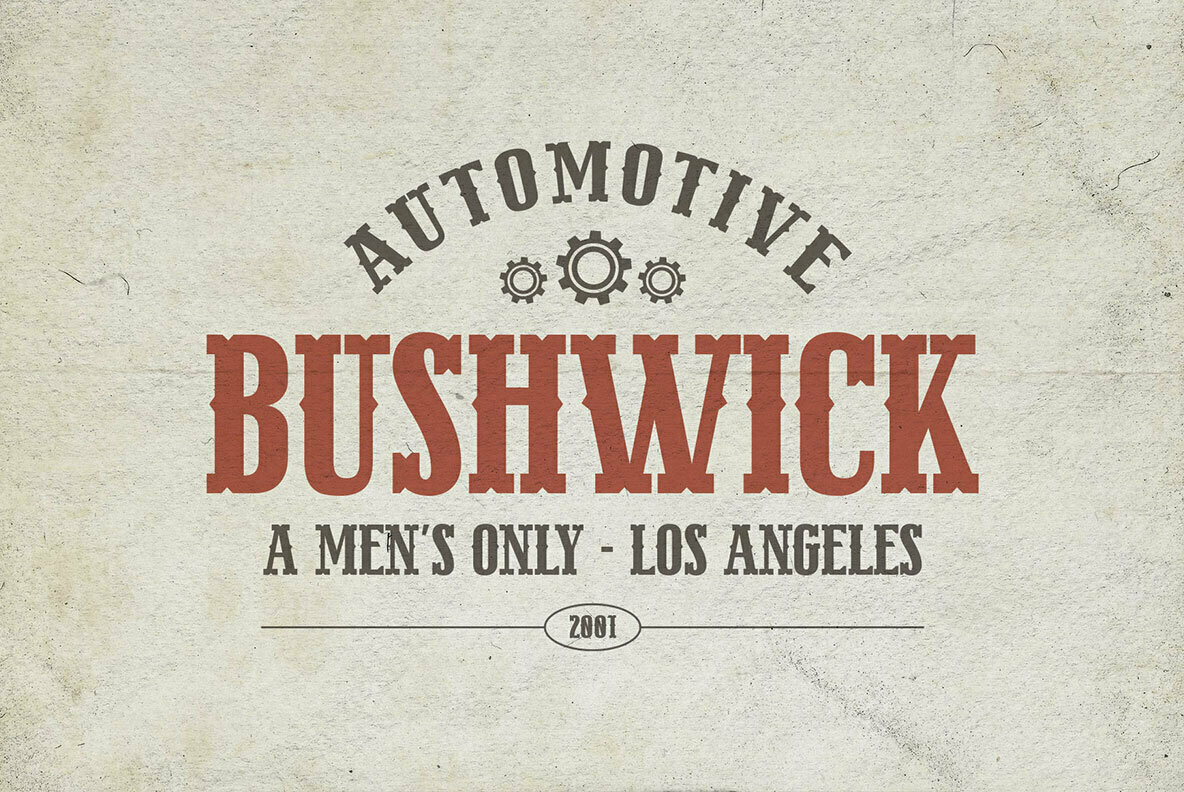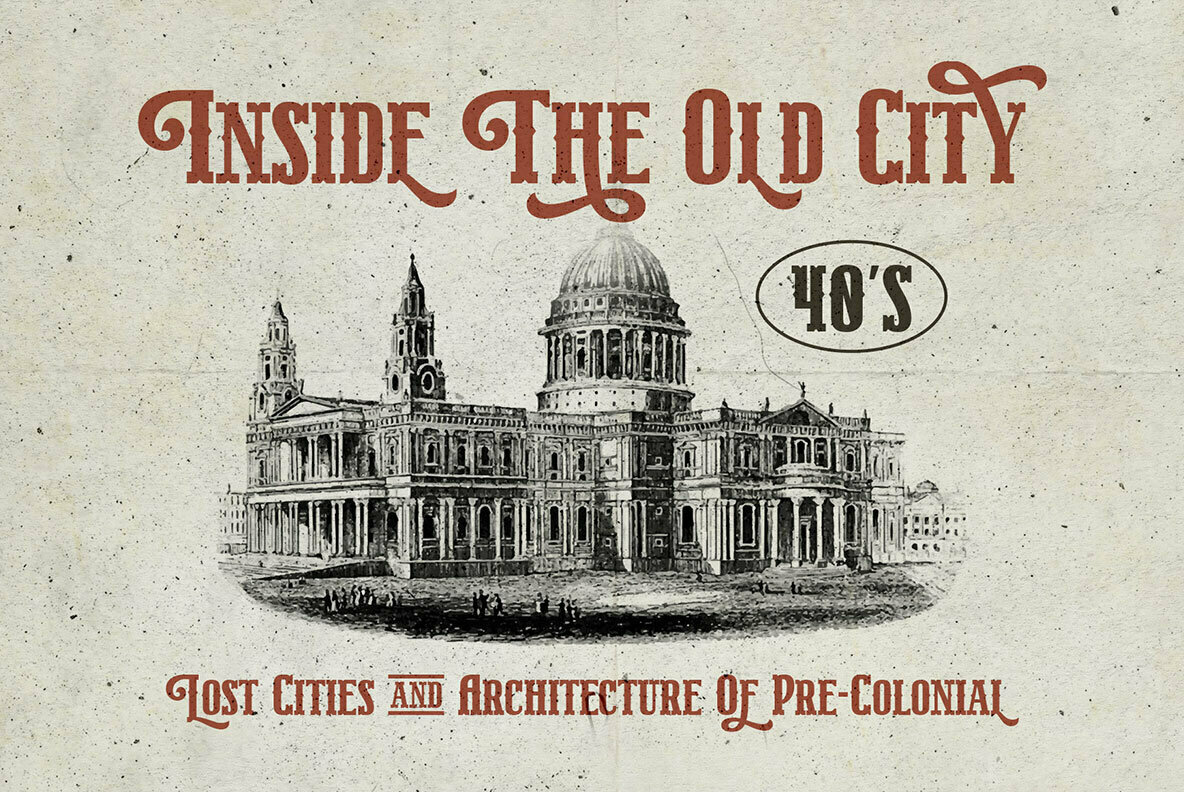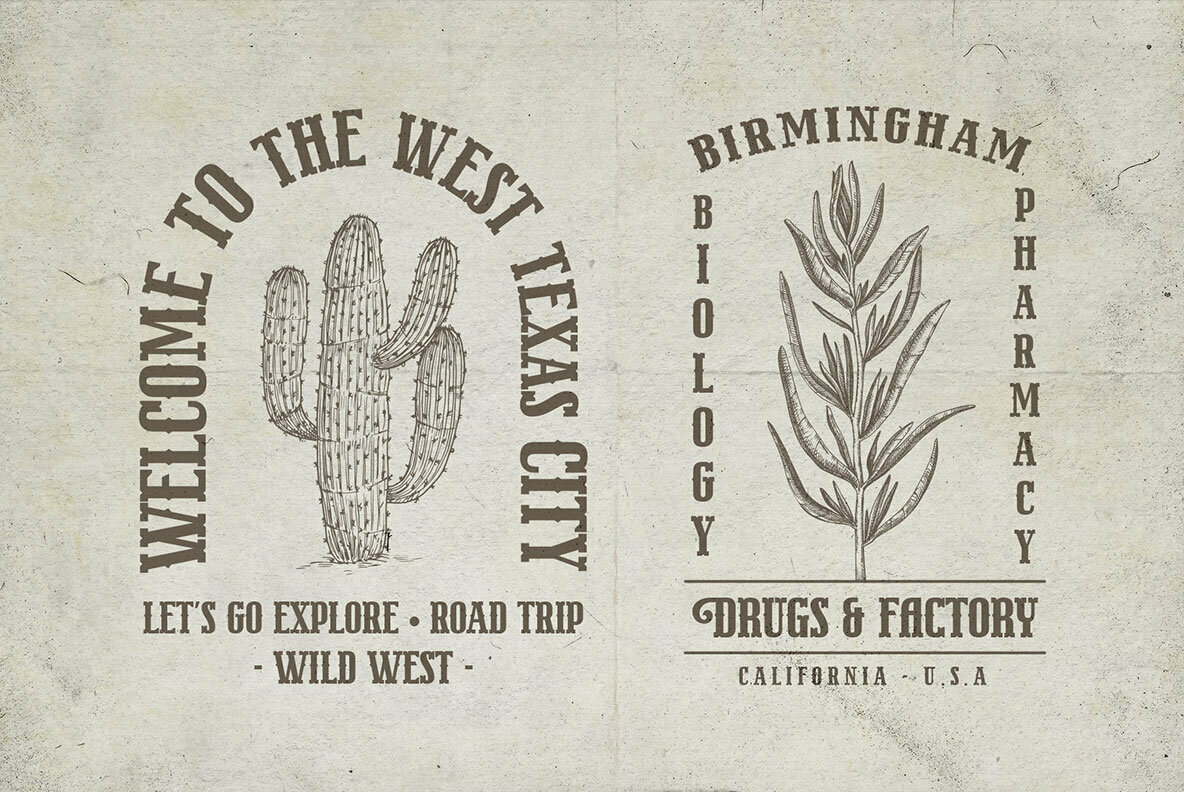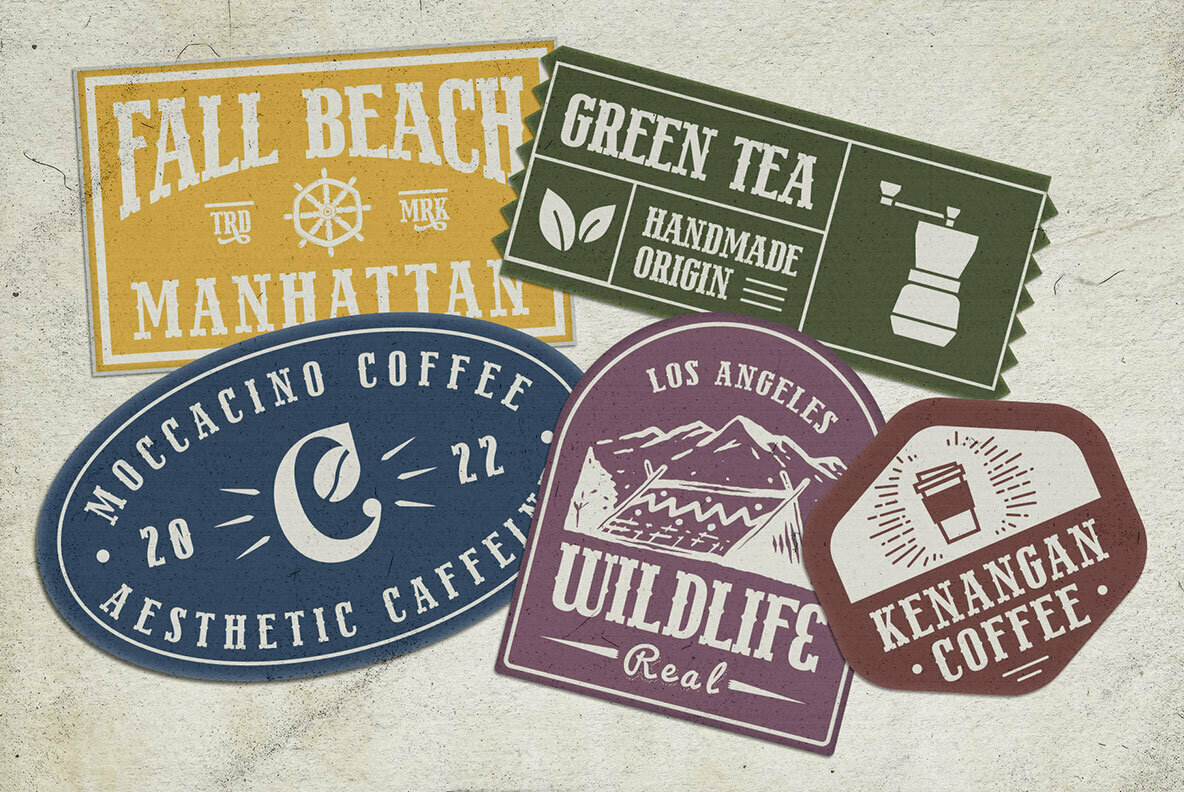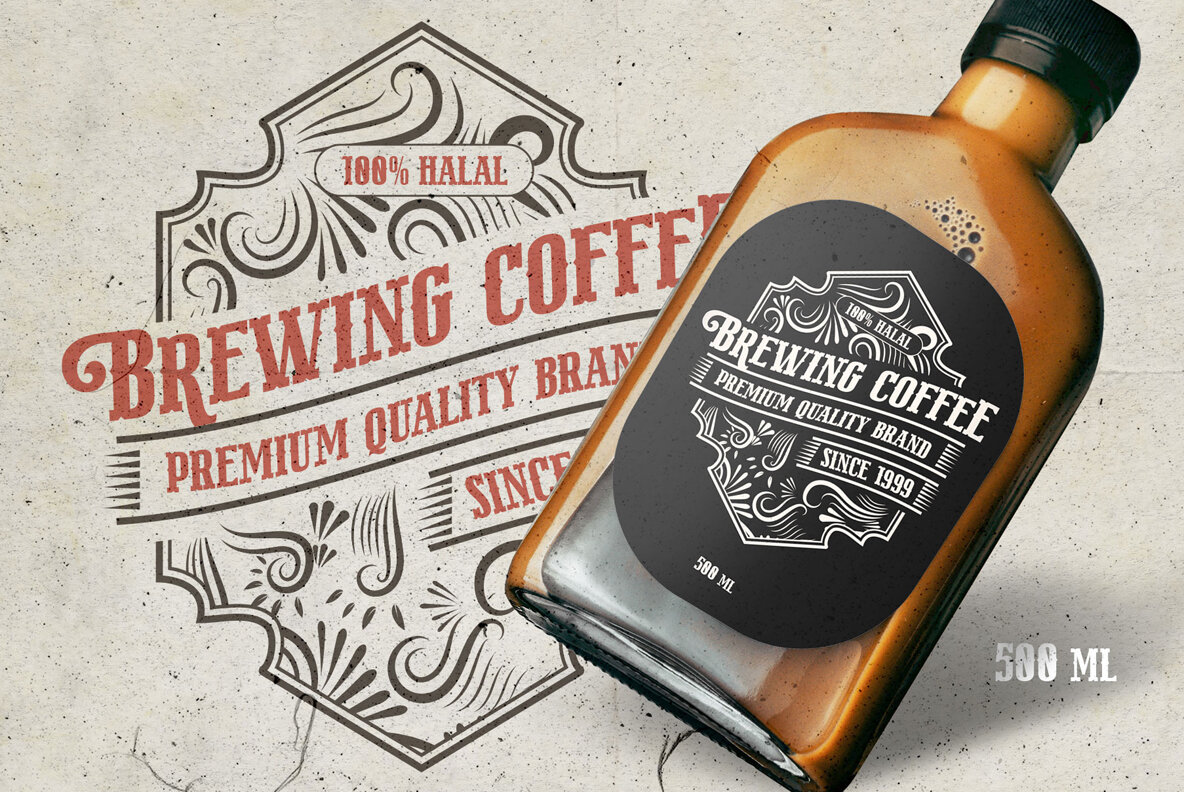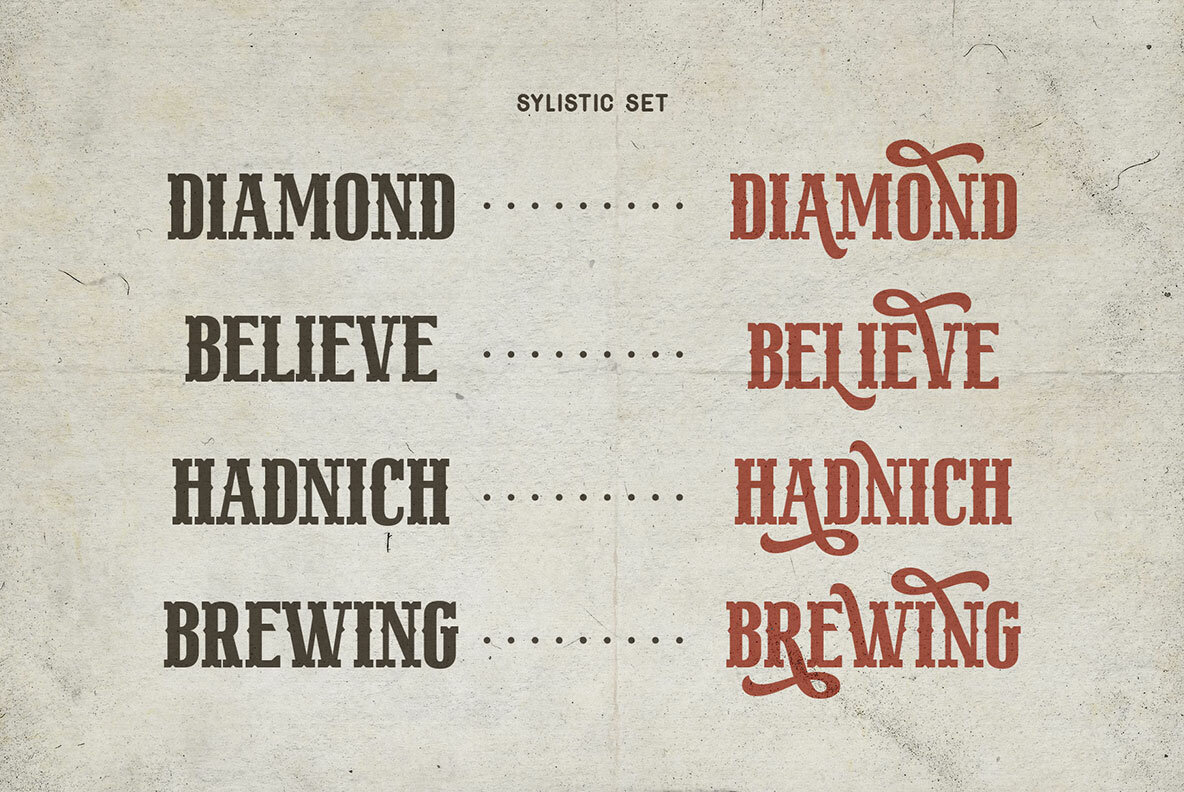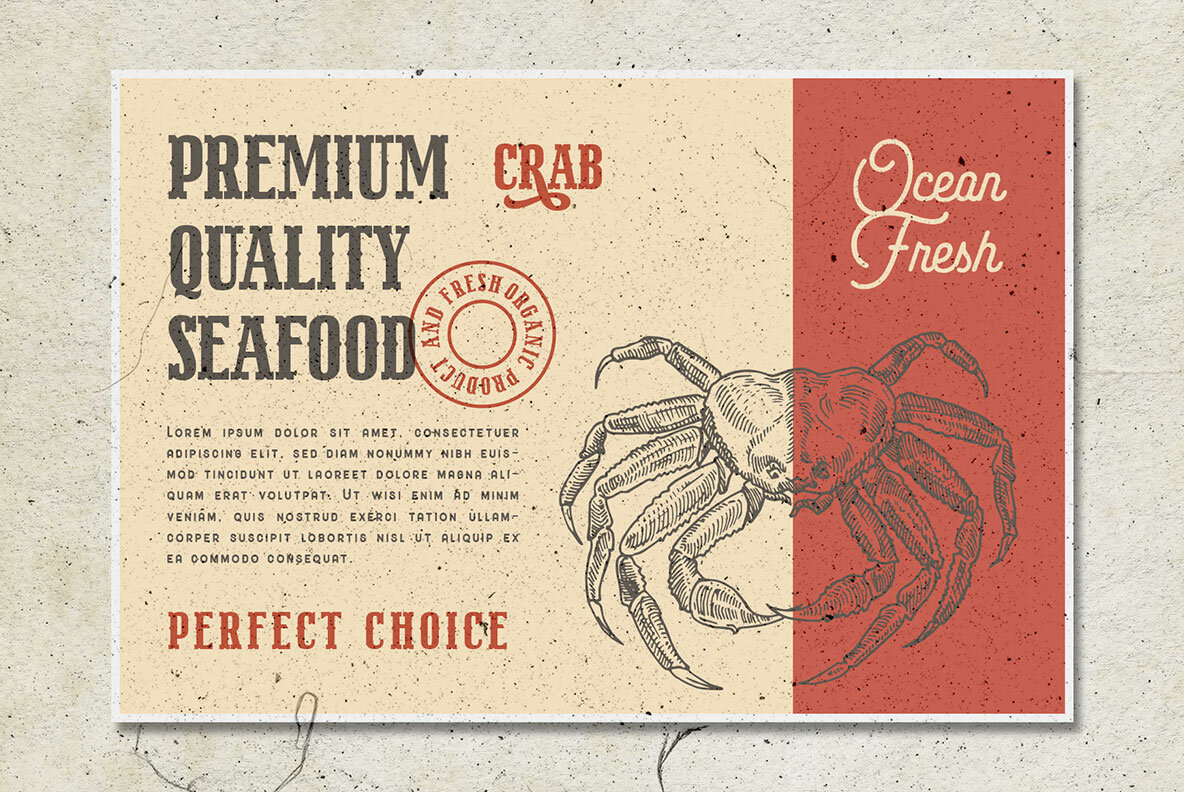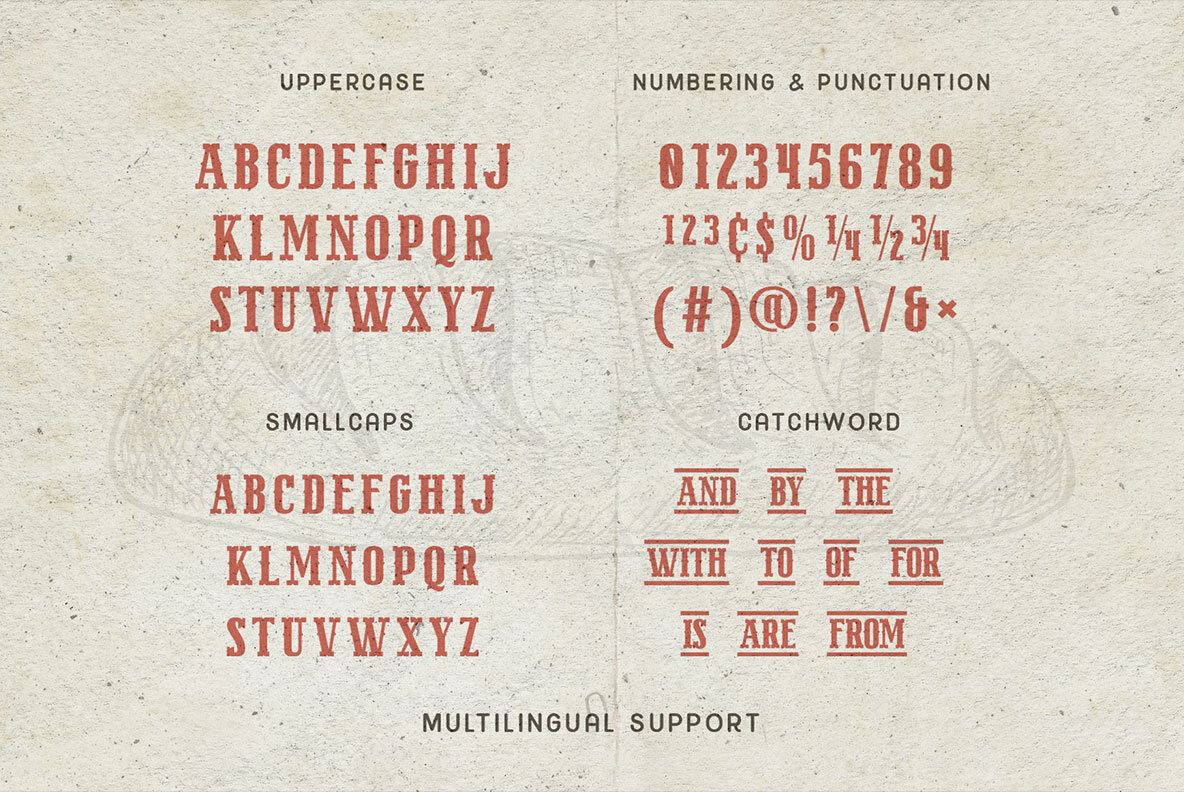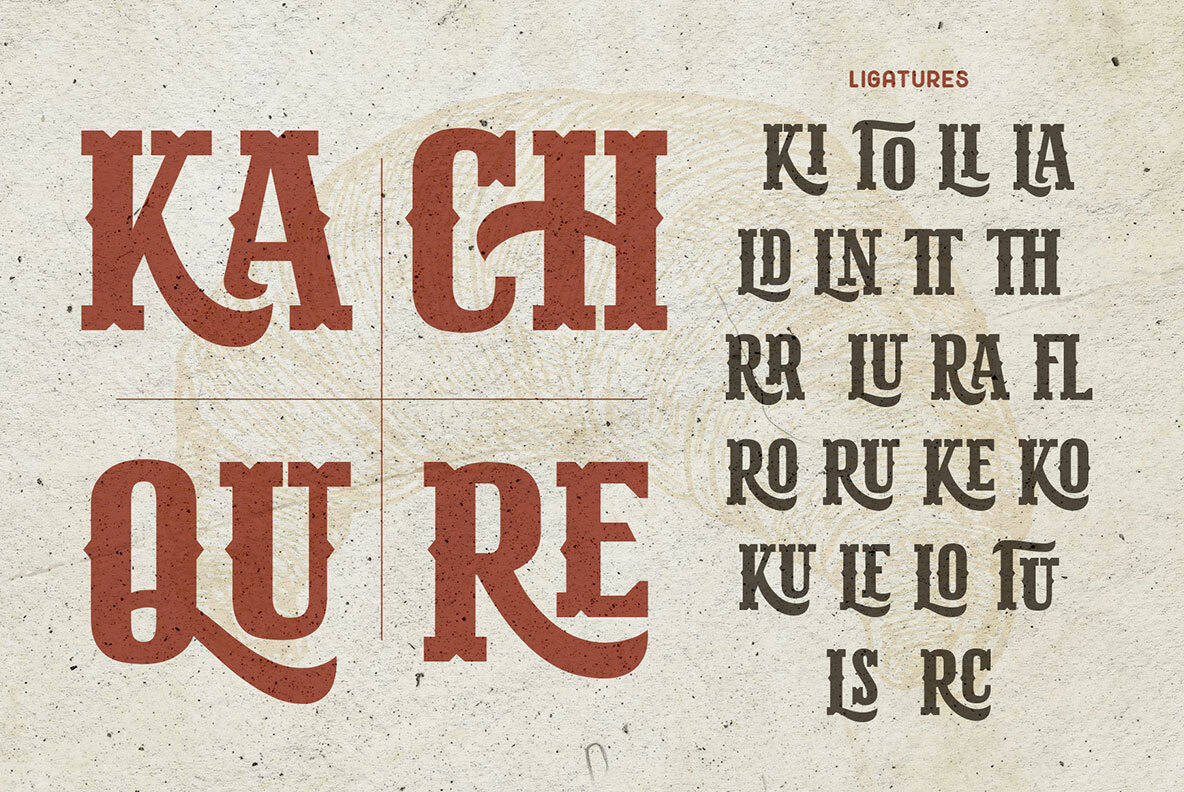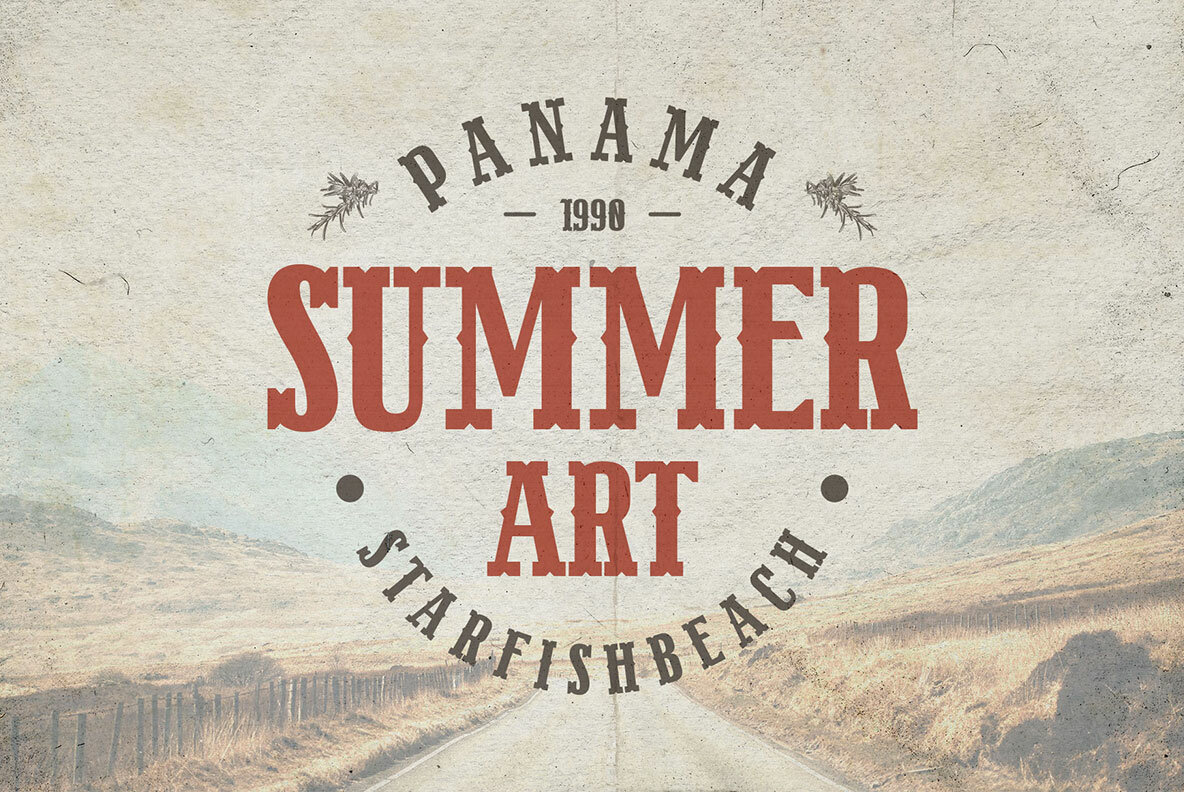
Breadrock Font
Bradrock Regular
Breadrock captures the essence of strength, confidence, and a nostalgic charm with its all-caps design. This font is perfect for creating vintage logos, displaying short text, and enhancing print media. Its robust presence is ideal for various applications, including mugs, embroidery, and packaging. Breadrock: Bold All-Caps Font with Vintage Appeal